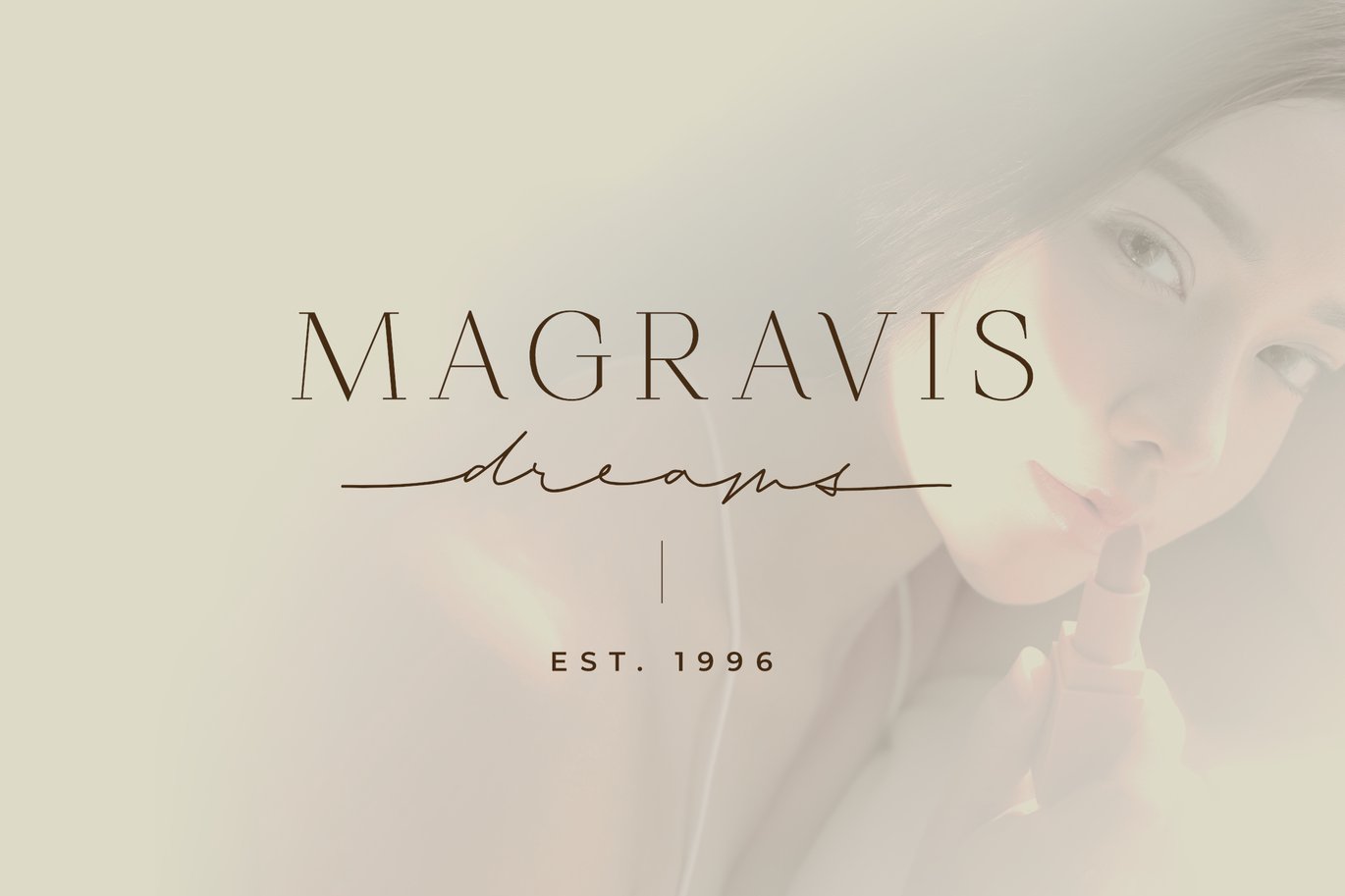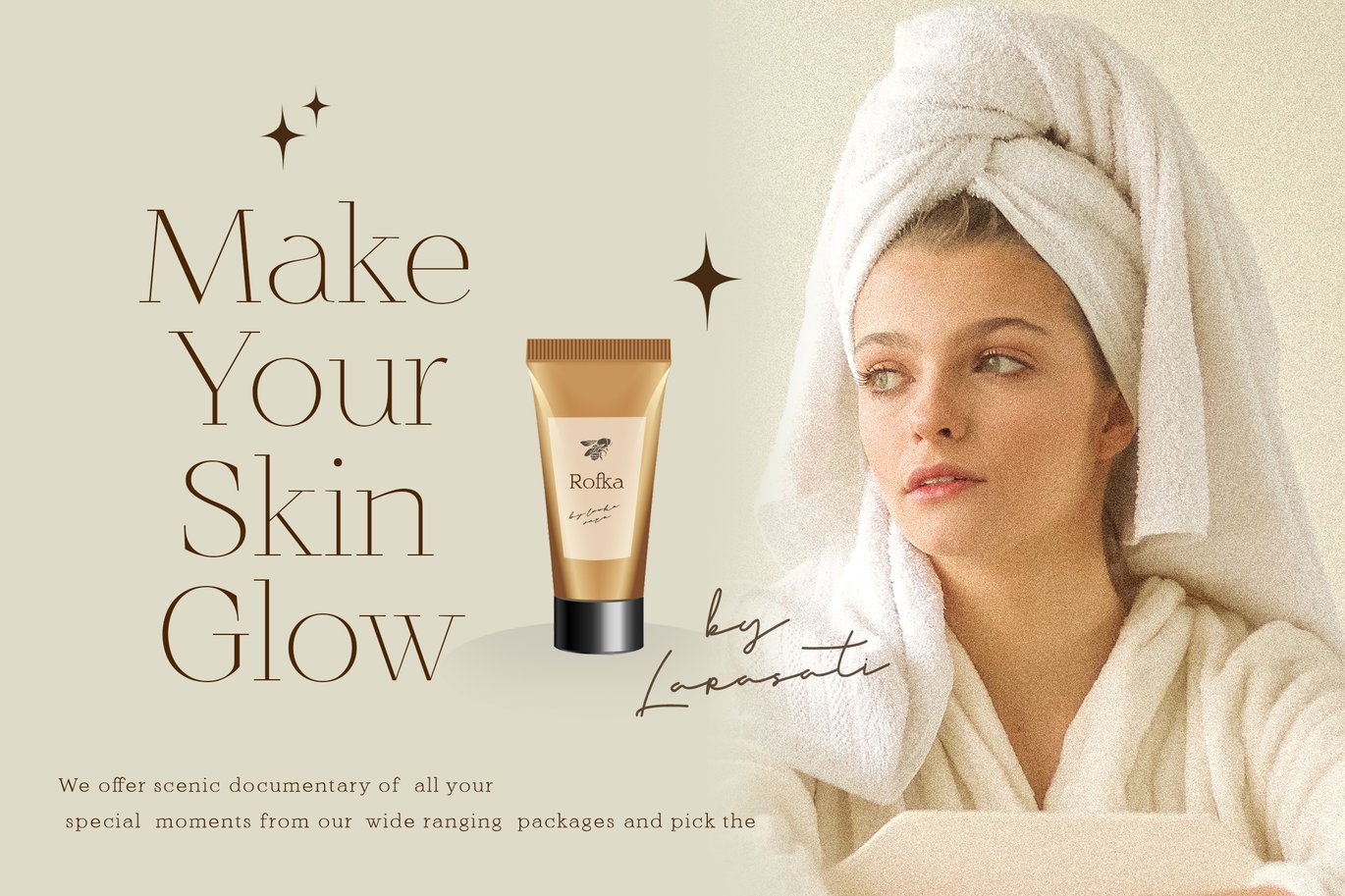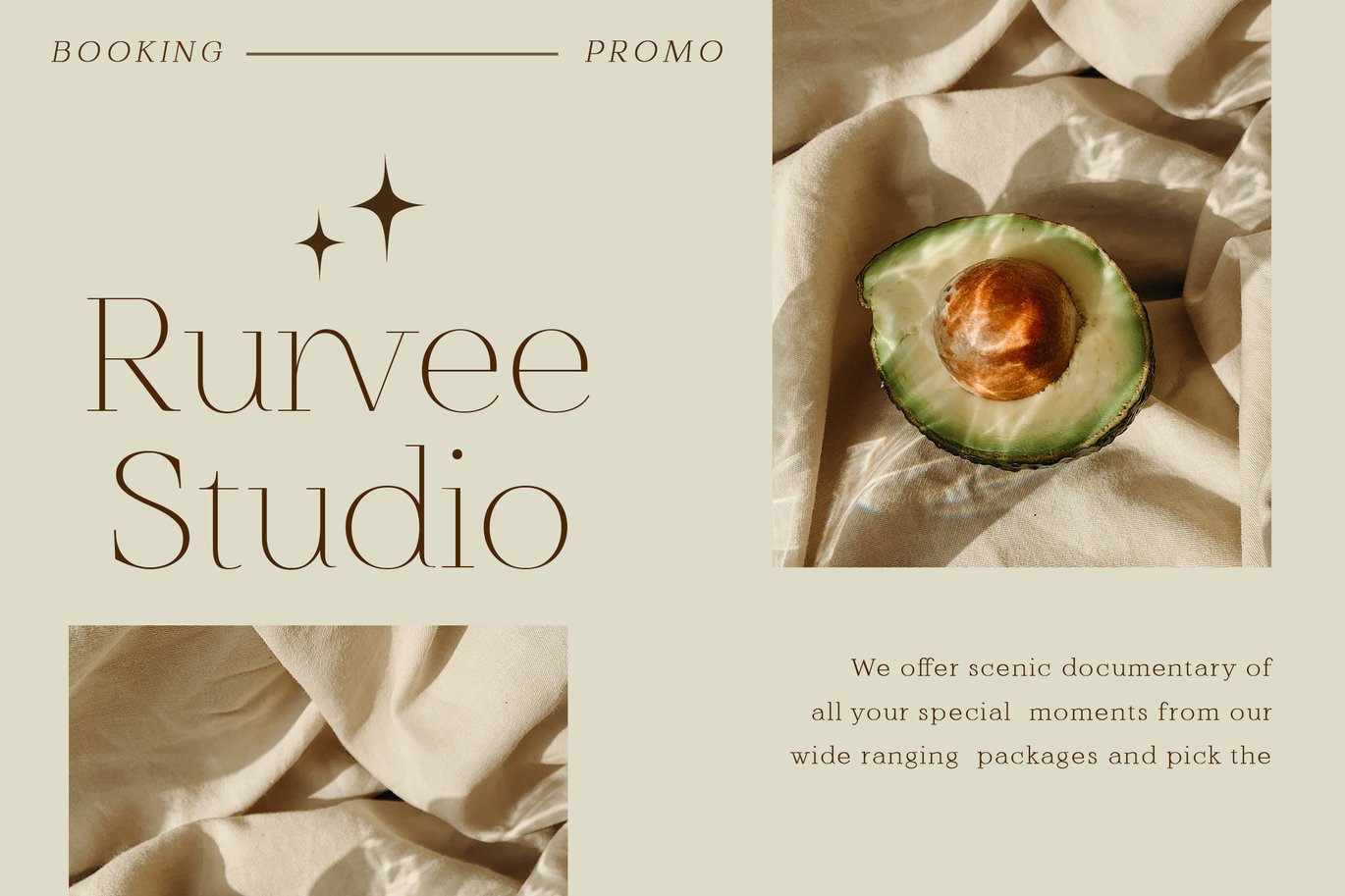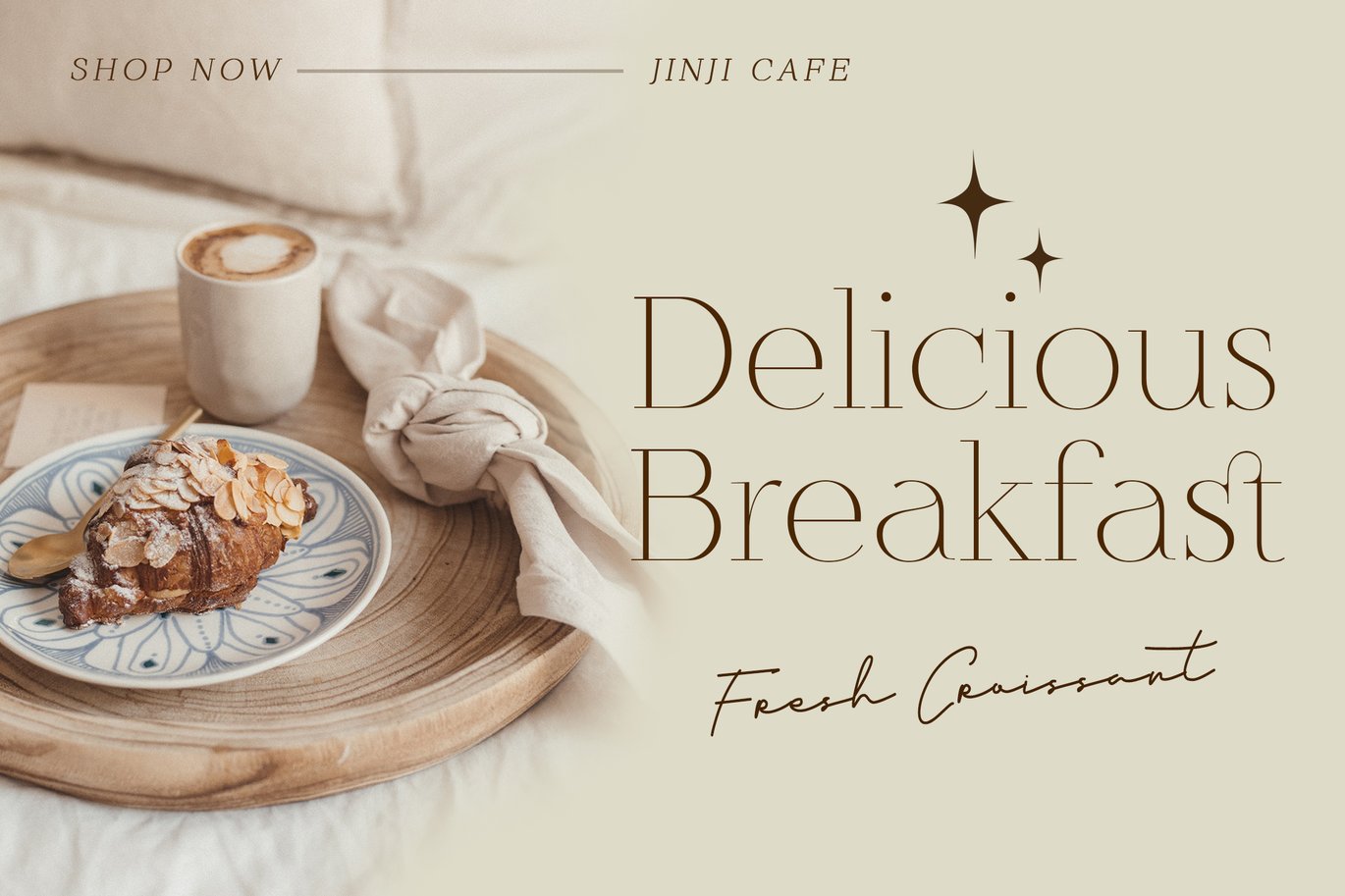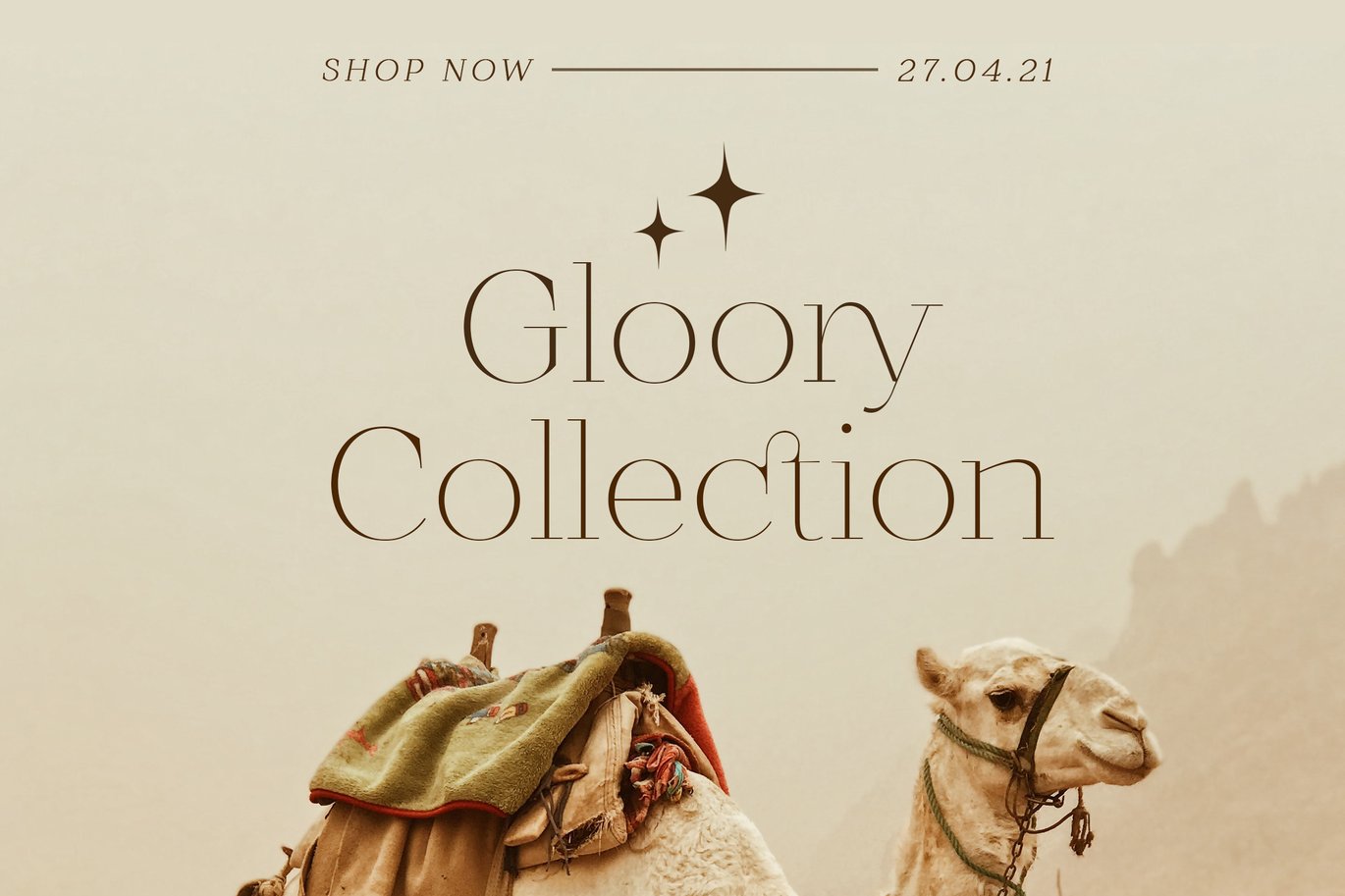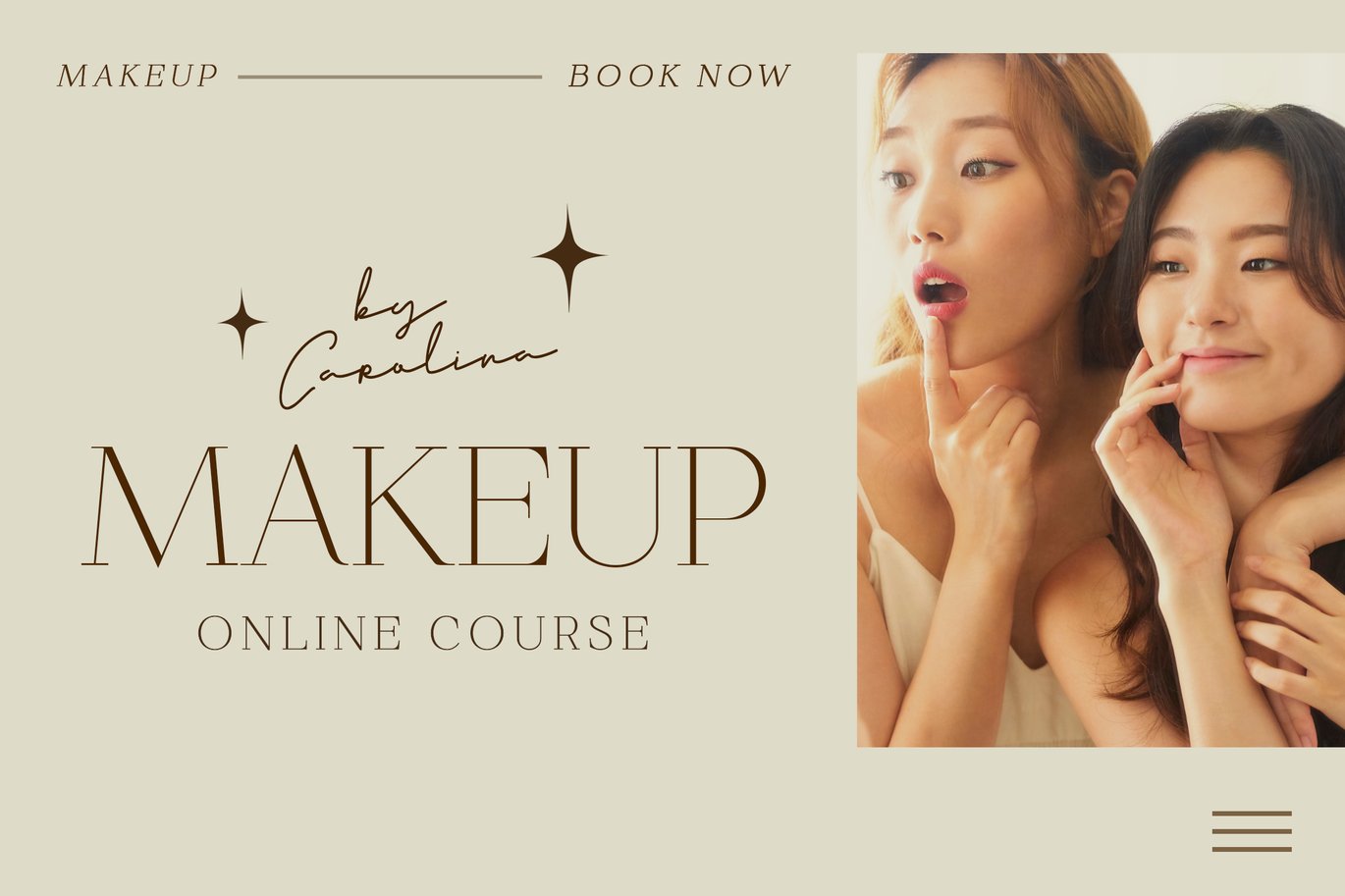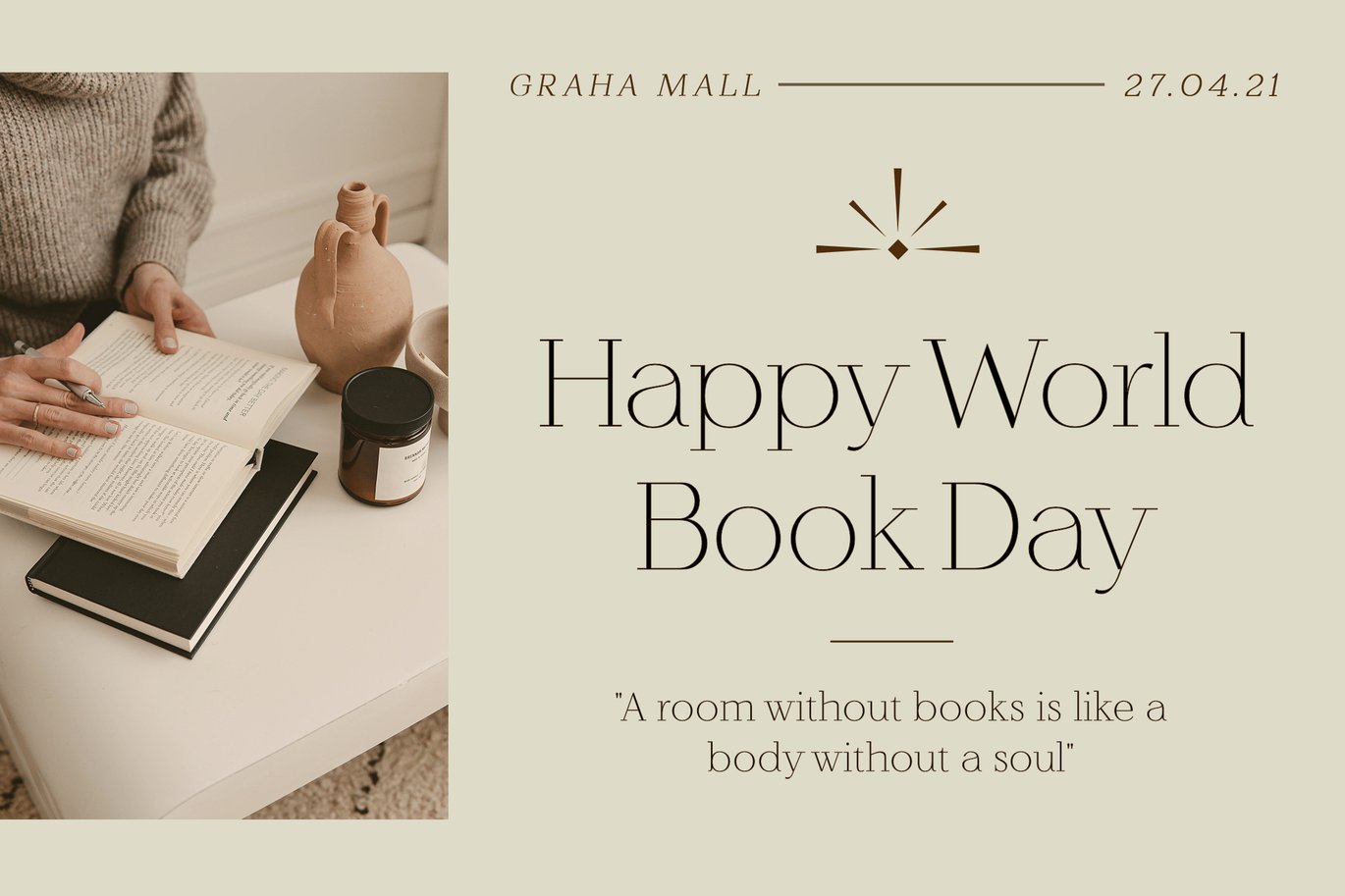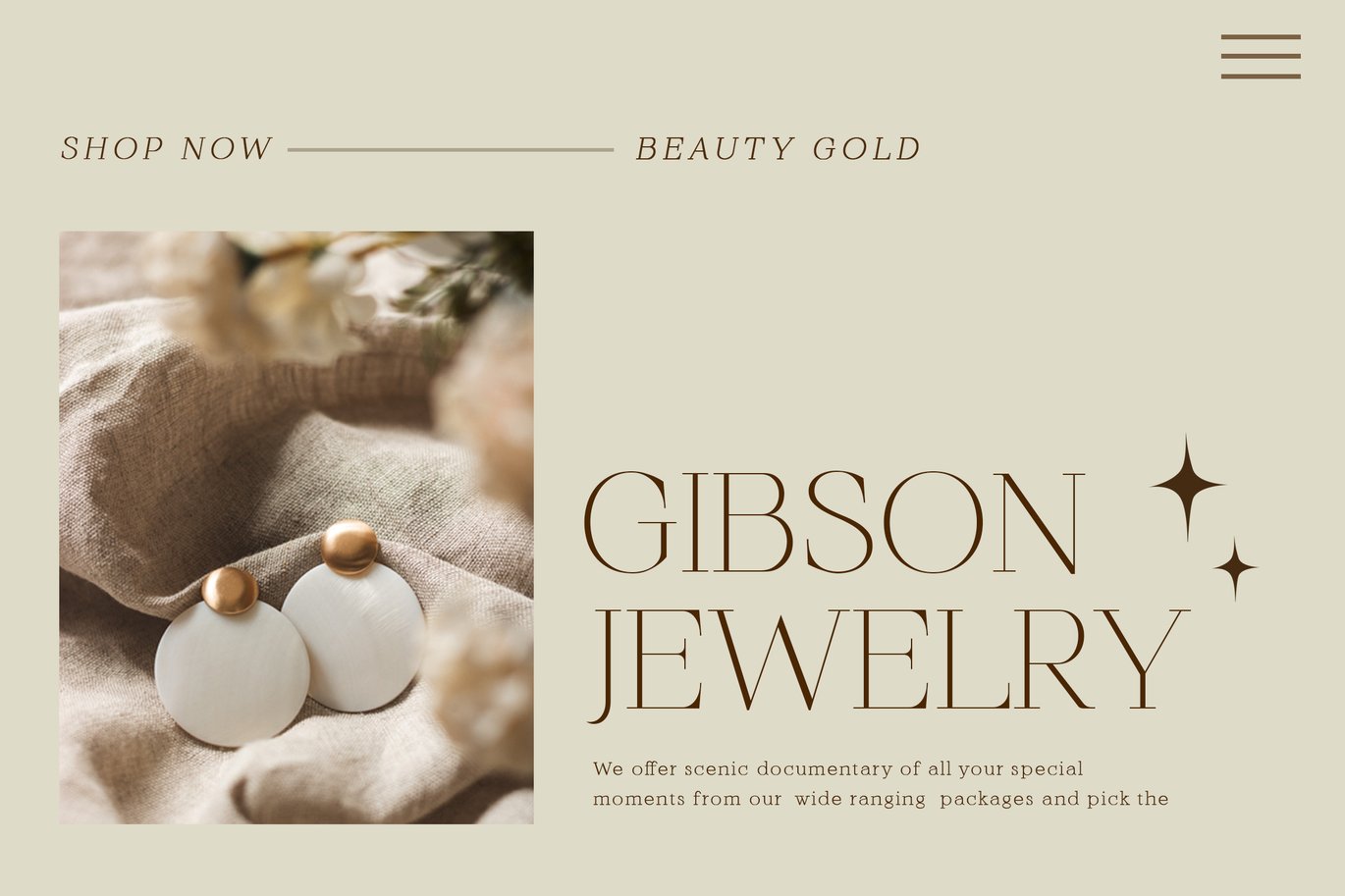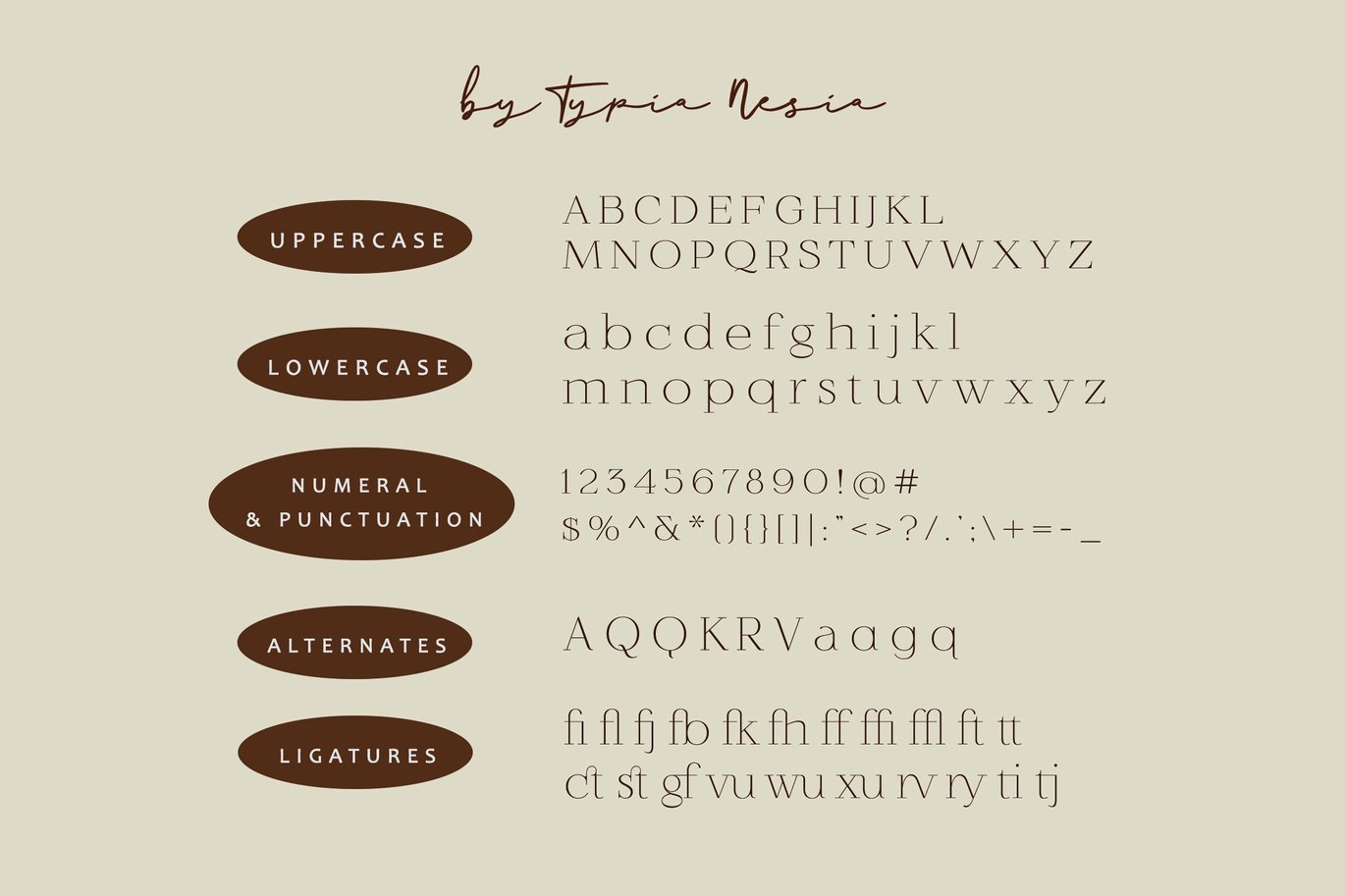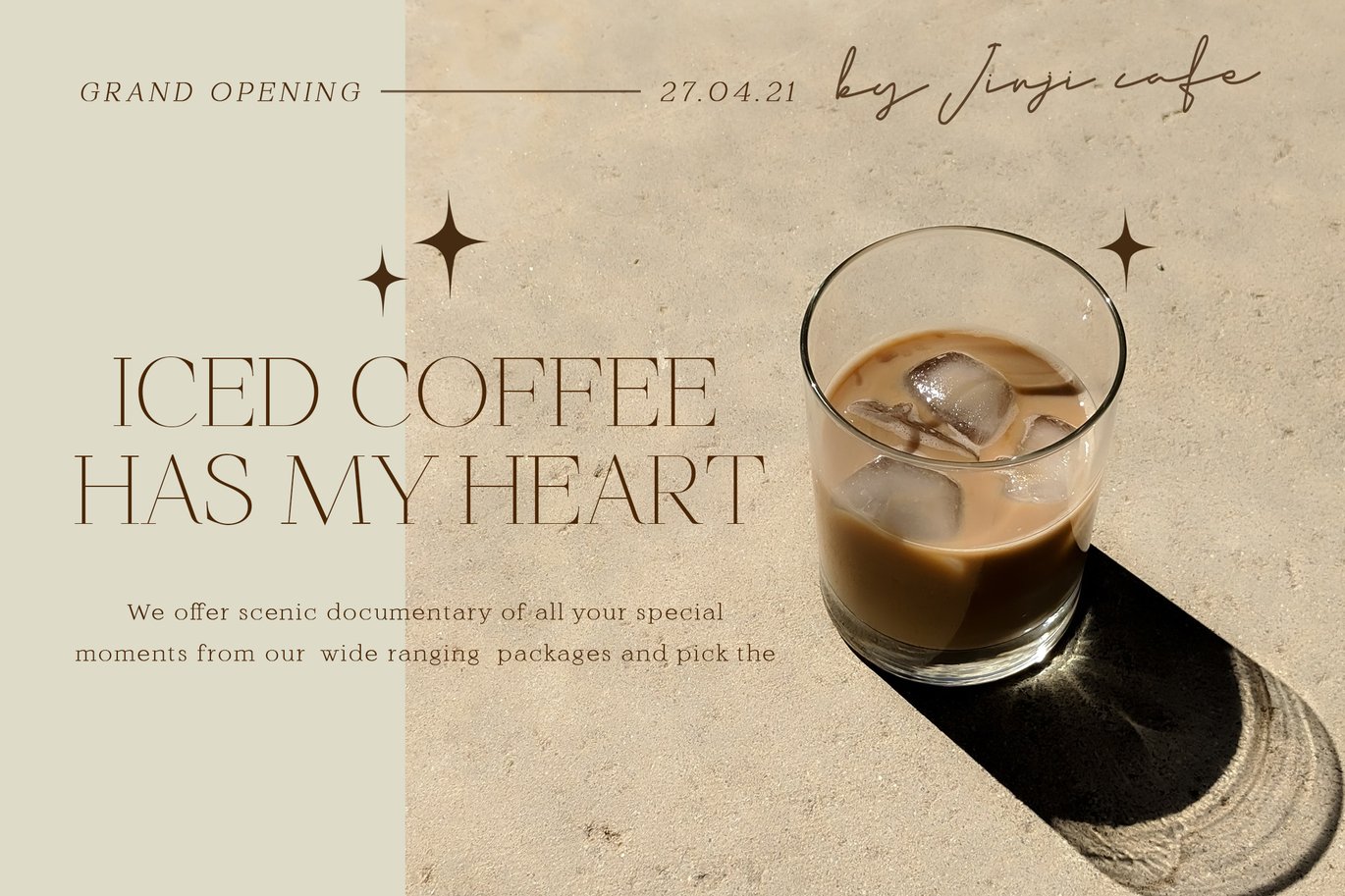
Allegory – Beauty Aesthetic Feminine Serif Font
Allegory – Beauty Aesthetic Feminine Serif – Elegant Skincare Instagram Branding Font
Allegory comes with some alternates and ligatures, so you can combine it to make a perfect typography design. It is perfect for your up coming projects. Such as luxury logo and branding, classy editorial design, woman magazine, cosmetic brand, fashion promotional, art gallery branding, museum, historical of architectural, boutique branding, stationery design, blog design, modern advertising design, card invitation, art quote, home decor, book/cover title, special events and any more.